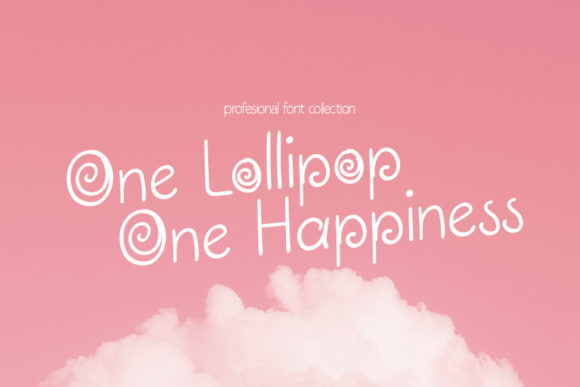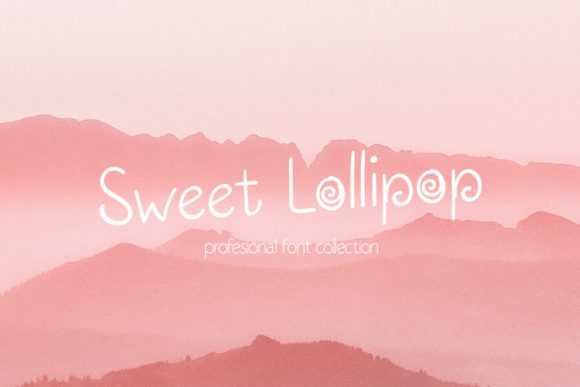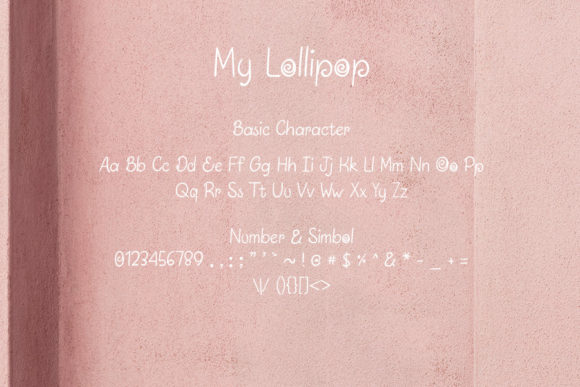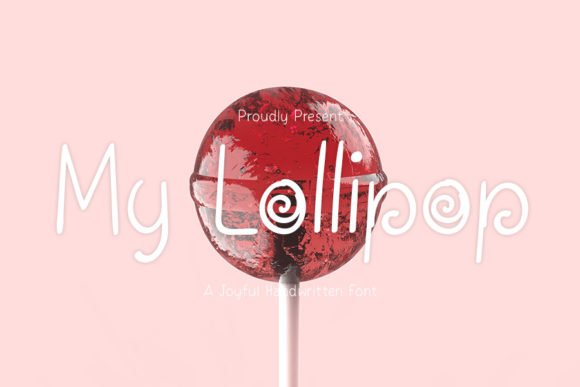
Introduction to My Lollipop Font
Lollipop is a sweet and friendly handwritten font.
Why Choose My Lollipop Font?
My Lollipop Font offers exceptional quality and versatility, making it a valuable addition to your design toolkit. Whether you’re creating for personal projects or commercial use, My Lollipop Font delivers professional results.